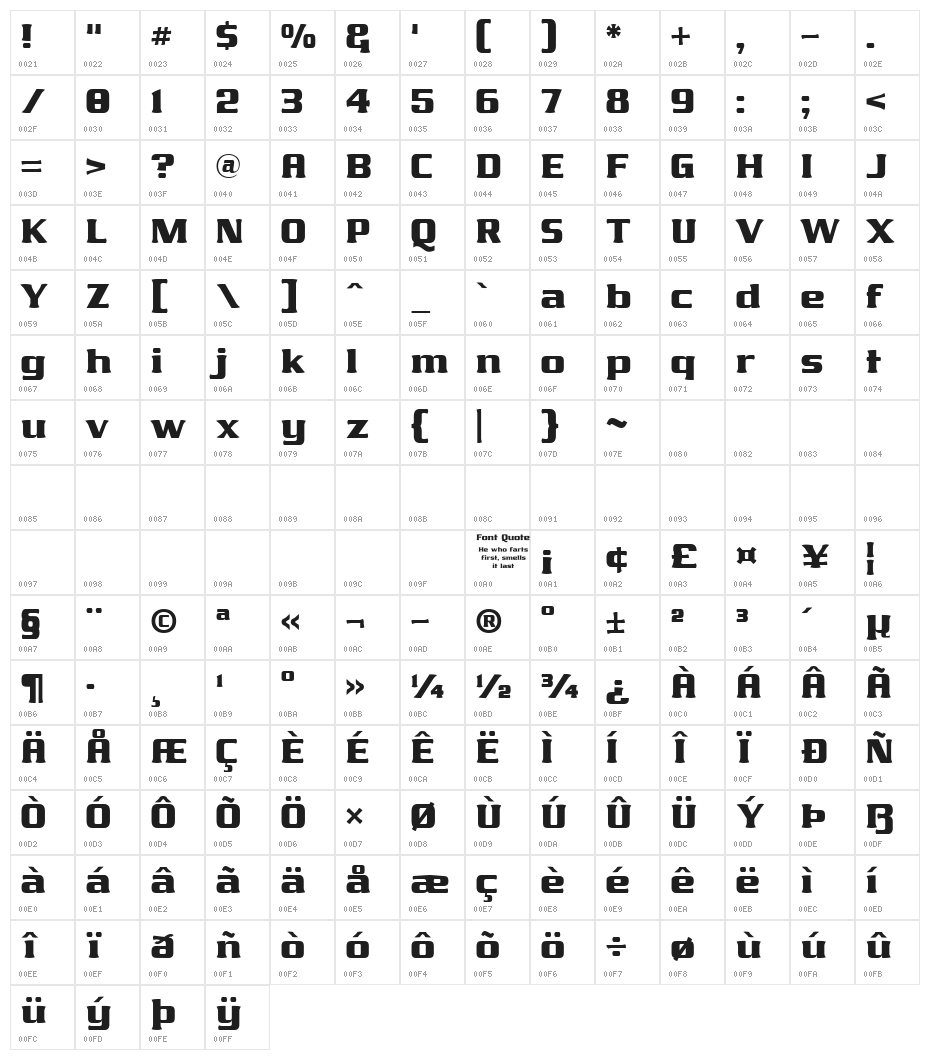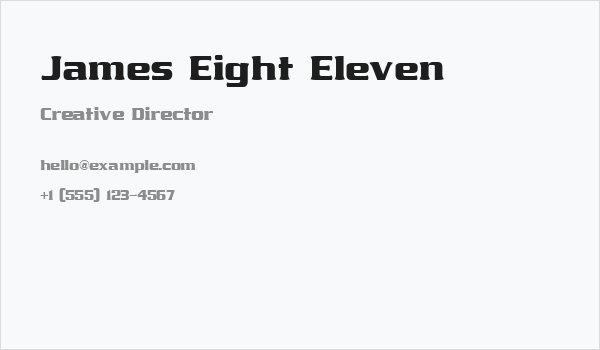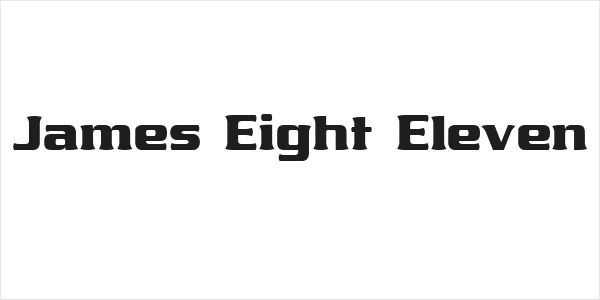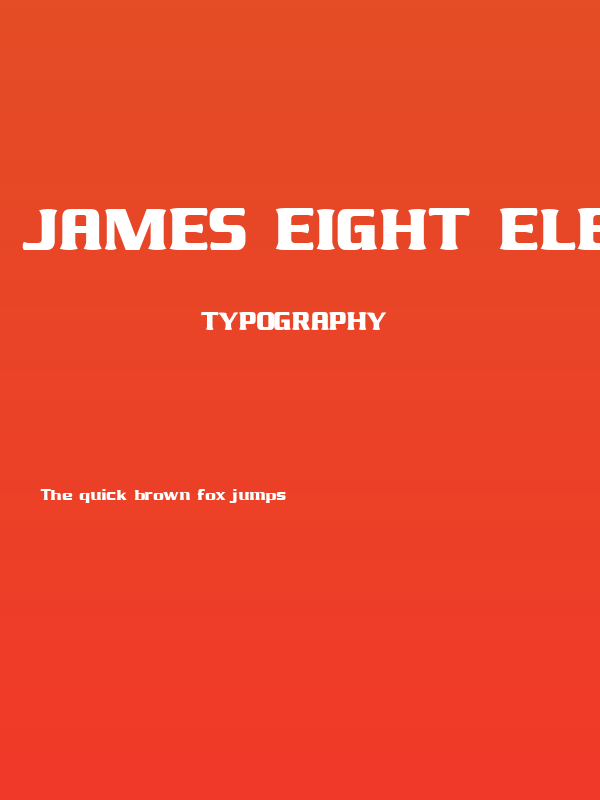
James Eight Eleven Font
James Eight Eleven Description
This font features a bold and robust design with a strong presence. The characters are slightly condensed, giving it a compact and powerful look. The strokes are thick and consistent, providing a uniform appearance across all characters. The uppercase letters have a squared-off style with subtle curves, while the lowercase letters maintain a similar aesthetic with slightly rounded edges. The numerals are bold and easy to read, matching the overall style of the alphabet. Special characters are designed to complement the main character set, maintaining the same bold and sturdy feel.
| Proposed Projects | Ideal for branding, headlines, posters, and any project requiring a bold, impactful typeface. |